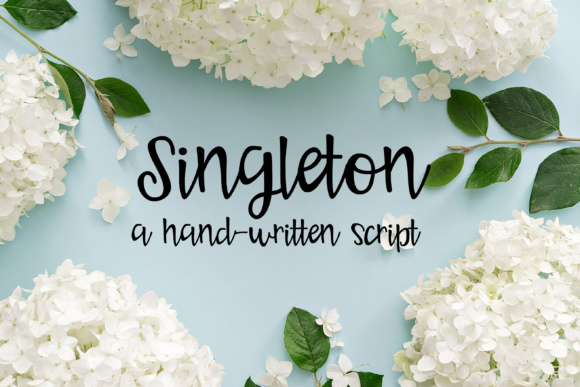
Introducing Singleton Font, a Handcrafted Masterpiece to Elevate Your Design Vision
Step into the enchanting world of Singleton Font, a captivating script that effortlessly blends charm and sophistication. This meticulous hand-written creation breathes life into your words, transforming them into an exquisite visual symphony. With its charmingly upright cursive silhouette and delightful baseline bounce, Singleton Font adds a playful touch to any project, leaving a lasting impression on your audience.
Unleash Your Creativity with Singleton Font, the Perfect Choice for:
- Logos: Design logos that exude a unique personality, capturing the essence of your brand and leaving a memorable imprint on your customers' minds.
- Branding: Elevate your brand's identity with Singleton Font, creating cohesive and captivating designs that tell your story with a touch of elegance.
- Invitations: Add a personal touch to your special occasions with Singleton Font, crafting exquisite invitations that set the tone for an unforgettable event.
- Social Media: Engage your audience with visually stunning social media posts that showcase your brand's message with a creative flair.
- Product Packaging: Entice customers with beautifully designed product packaging that features Singleton Font, creating an unforgettable unboxing experience.
- Website Design: Transform your website into a visual masterpiece with Singleton Font, crafting an immersive online experience that captivates your visitors.
Immerse Yourself in the Enchanting Features of Singleton Font:
- Upright Cursive Script: Delight in the exquisite upright cursive style of Singleton Font, a refreshing departure from traditional scripts, infusing your designs with a modern and playful touch.
- Baseline Bounce: Experience the delightful baseline bounce of Singleton Font, adding a dynamic rhythm to your text, evoking a sense of joy and movement.
- Handcrafted Charm: Revel in the handcrafted charm of Singleton Font, meticulously created to retain the natural nuances of handwritten script, bringing warmth and authenticity to your designs.
- Extensive Language Support: Expand your creative horizons with Singleton Font's comprehensive language support, catering to a diverse audience and enabling you to communicate your message to the world.
Elevate your design projects to new heights with Singleton Font, the perfect companion for creatives seeking to make a statement. Its captivating script, delightful features, and enchanting charm will transform your designs into works of art, leaving a lasting impression on your audience. Embrace the beauty of Singleton Font today and unlock a world of endless creative possibilities.